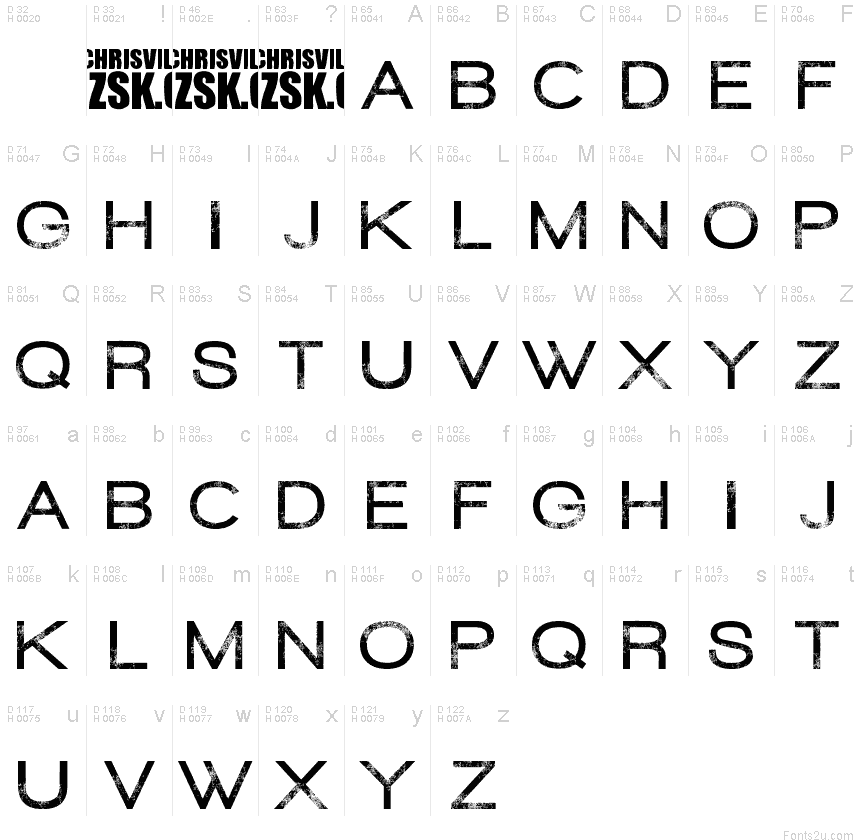
Redux by Chris Vile of Fonts by GKDN is a free eroded sans serif display font with broad capitals and firm geometric shapes. Scuffed bands cut across the strokes in uneven patches, giving the controlled lettering the look of weathered print.
Poster design is its clearest home, especially for concerts and streetwear launches. It also suits industrial album packaging and merchandise. In editorial design, a feature title can echo the roughness of photocopied textures.